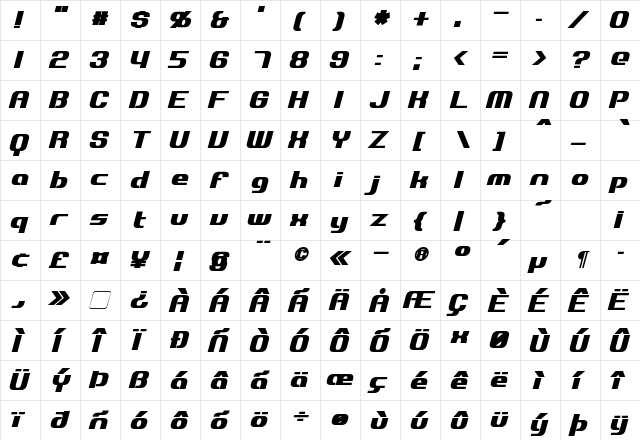
Explorien Bold Italic Font Preview
Explorien Bold Italic
Explorien Bold Italic Font Details
| Foundry | Neale Davidson |
| Designer | Neale Davidson |
Design Context for Explorien Typeface
Explorien offers clean, dependable letterforms without strong stylistic allegiance, making it a practical choice for designers who need flexibility. The dynamic lean of this cut emphasises speed and emphasis in any layout. The heavy weight commands attention and anchors typographic hierarchies.
Pro Tip: Use Explorien for emphasis, pull quotes, and subheadings where its slanted energy can add rhythm to the layout.